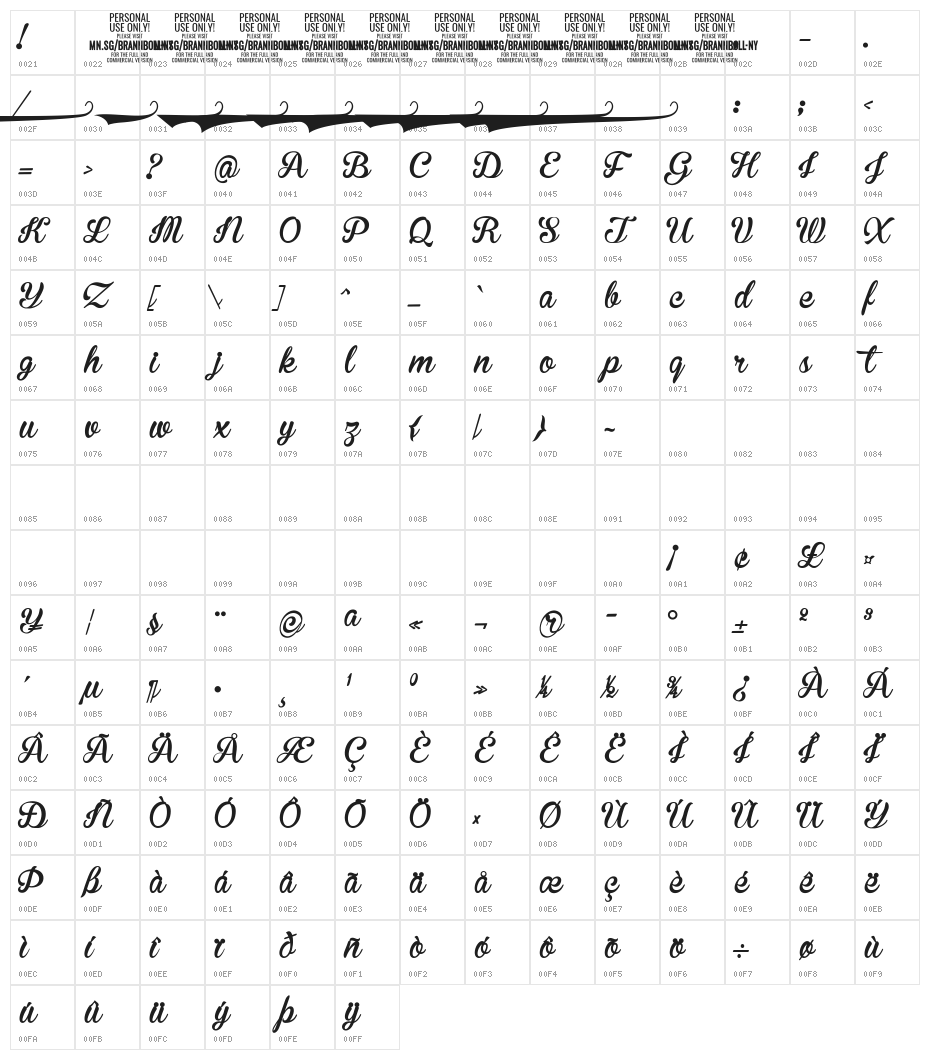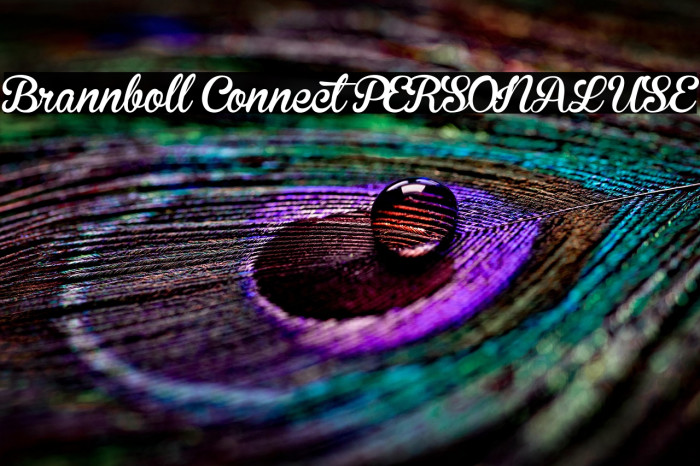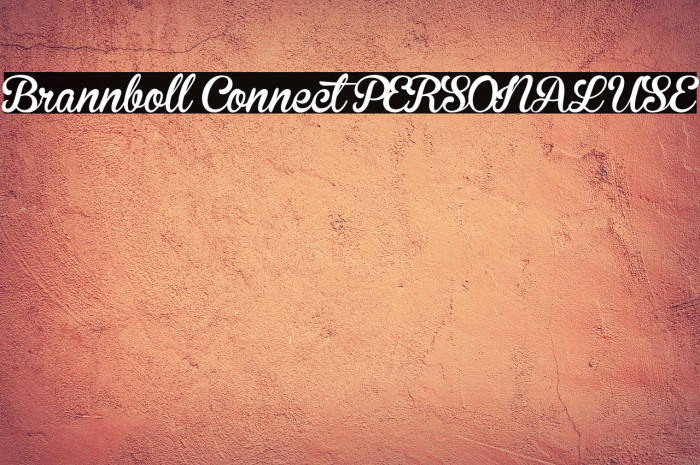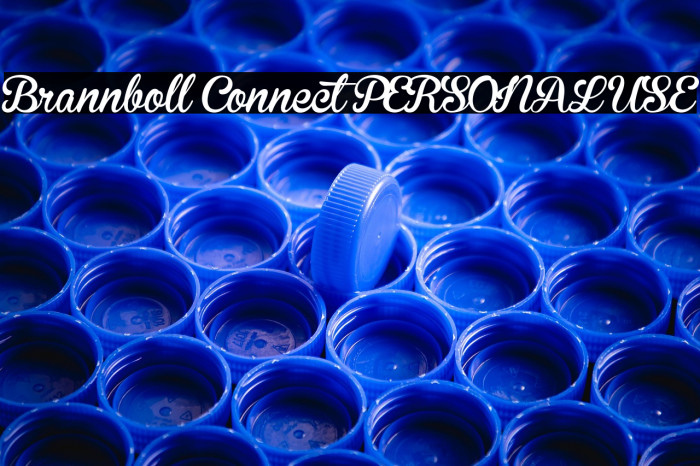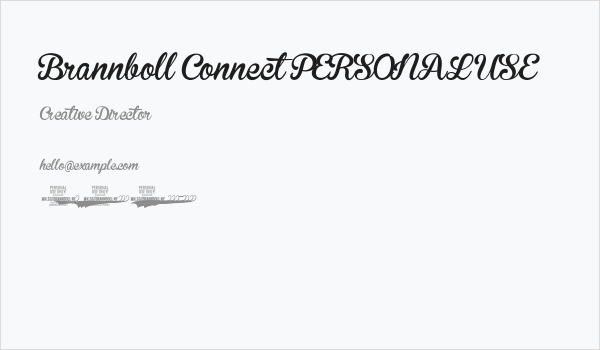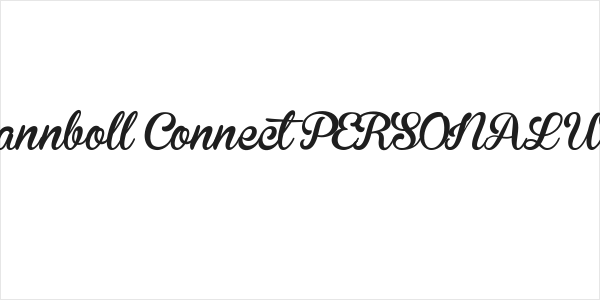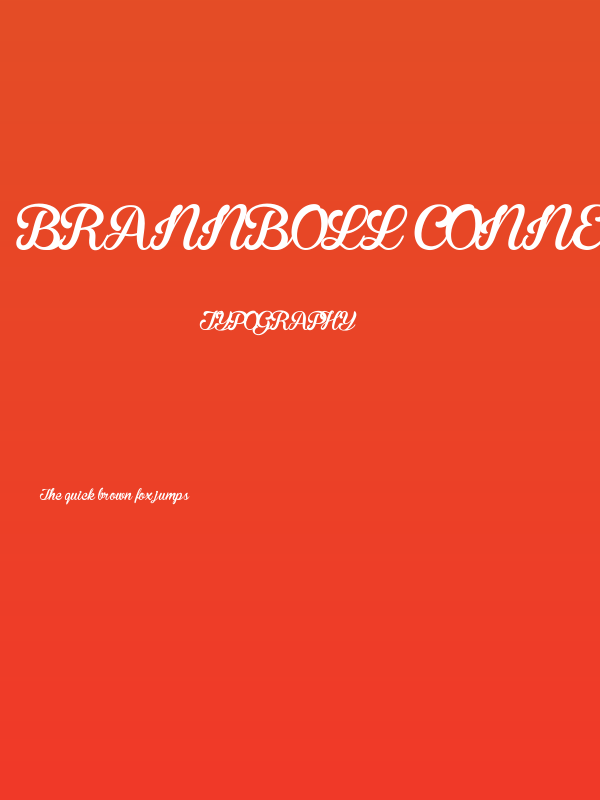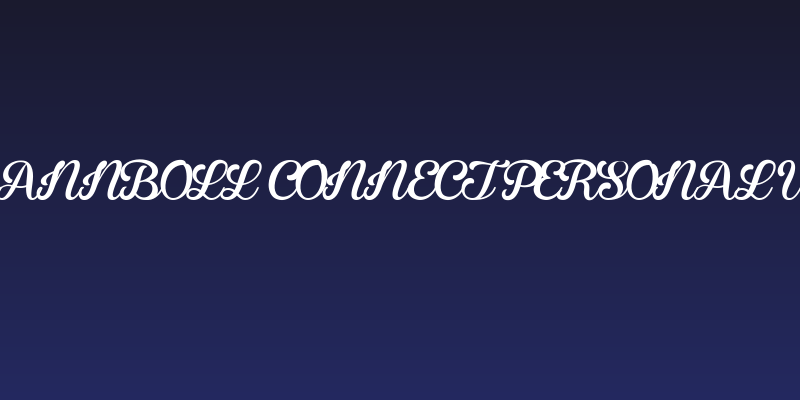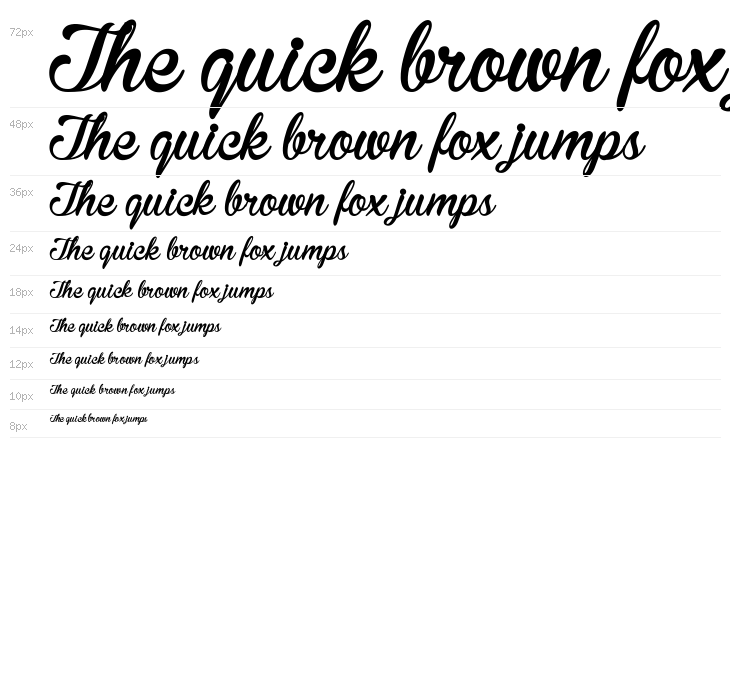
Brannboll Connect PERSONAL USE Font
Brannboll Connect PERSONAL USE Description
This font features a flowing, cursive style with elegant, connected letters that give it a handwritten appearance. The uppercase letters are bold and sweeping, with dramatic flourishes that enhance its decorative appeal. The lowercase letters maintain a consistent style, offering a smooth transition between characters. The font's overall look is both playful and sophisticated, making it suitable for creative and artistic projects. Its unique style is characterized by a sense of movement and fluidity, which is accentuated by the consistent stroke width and the seamless connection between letters.